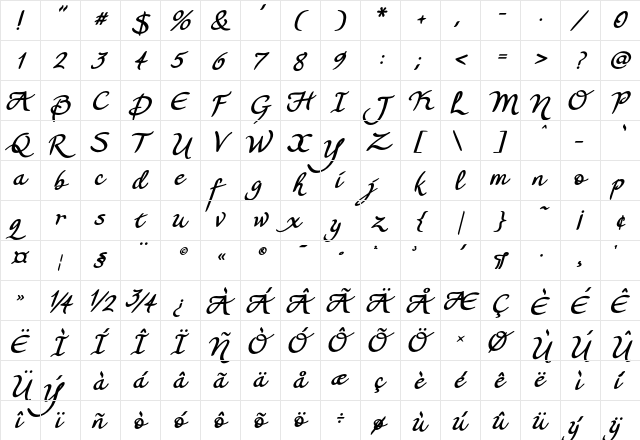
Lorelei Potens Script Potens Script
| Foundry | Jeremy Dooley |
Design Context for Lorelei Potens Script Typeface
Lorelei Potens Script brings a calligraphic fluidity to the page — its connecting strokes and expressive curves give it an unmistakably human quality.
Font Pairing: Combine Lorelei Potens Script with a simple geometric sans for maximum contrast — the tension between flowing curves and clean structure is a classic typographic pairing.
Pro Tip: Use Lorelei Potens Script for short runs of text — names, titles, or taglines. Extended body copy in script faces tires the eye quickly.